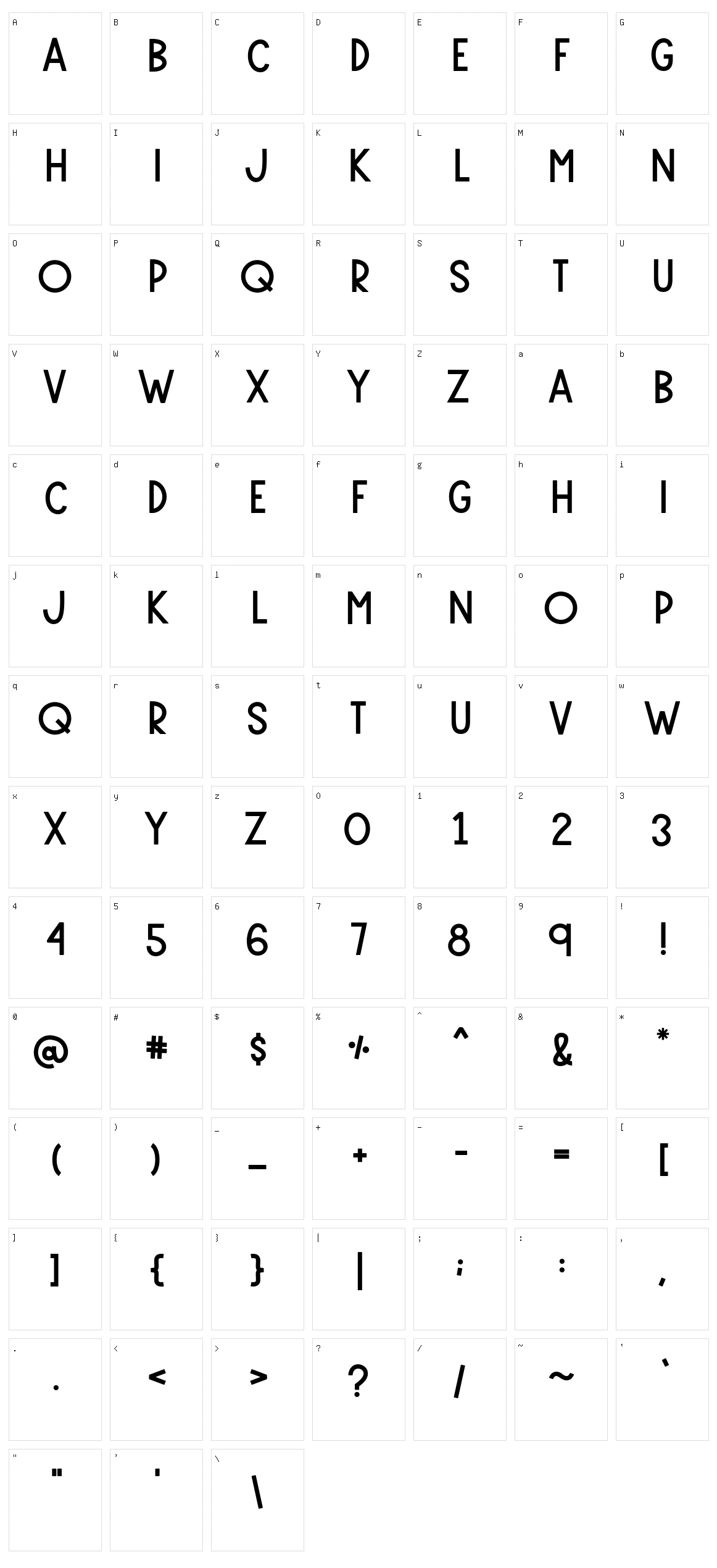
The free font Lavigne is carefully designed by Emylia Maratta, showcasing a thoughtful balance of creativity and usability and falls under the Sans serif font style. When you download the ZIP file, it contains only 37.24 KB of font files, making it lightweight and quick to download. Please review the license details below to understand permitted usage and distribution rights. If license information is not available, we recommend using this font for personal projects only or contacting the author directly for commercial usage permissions.